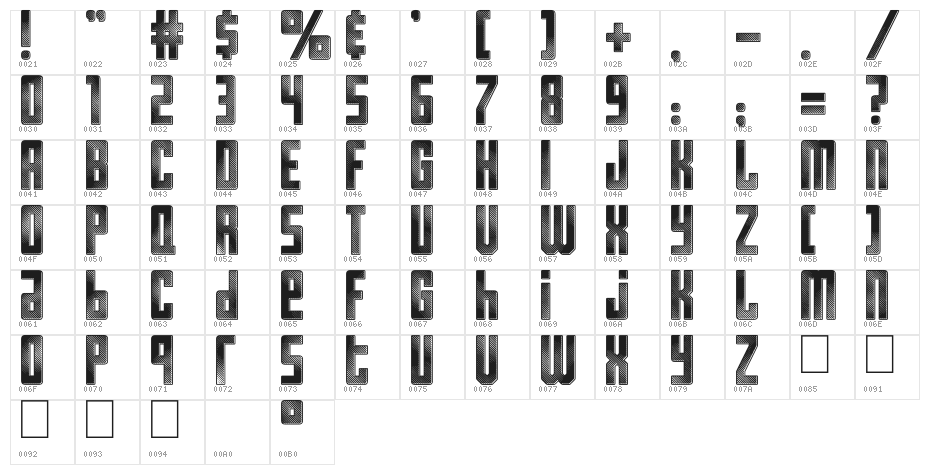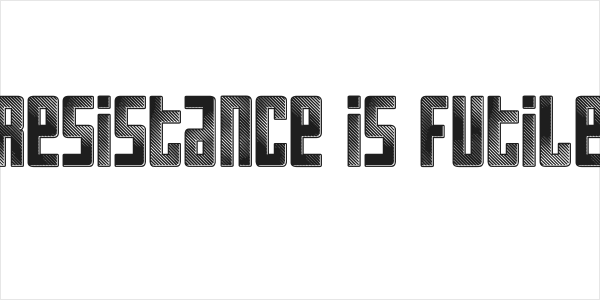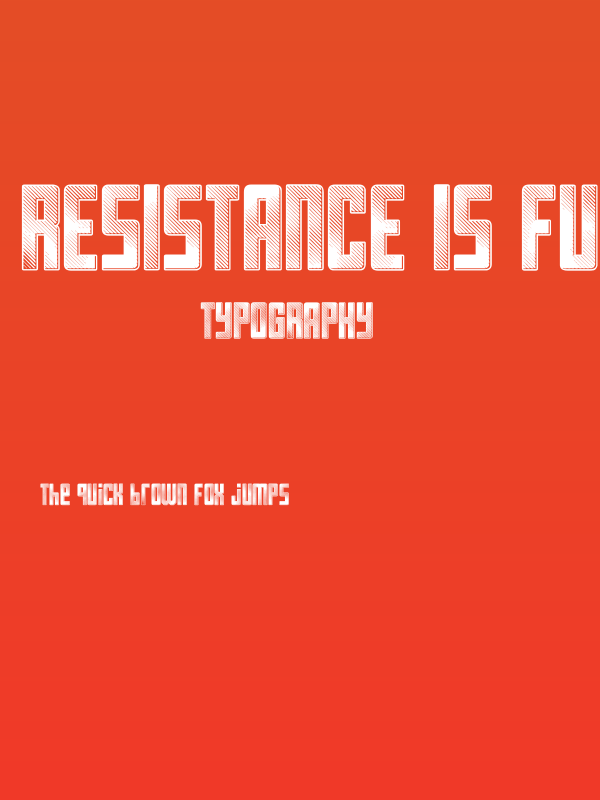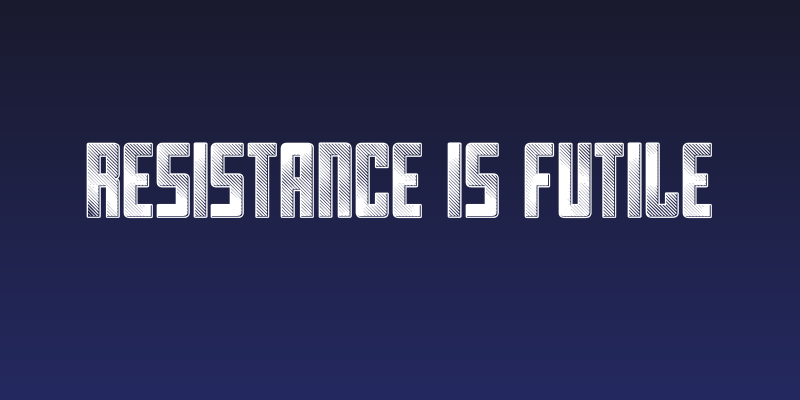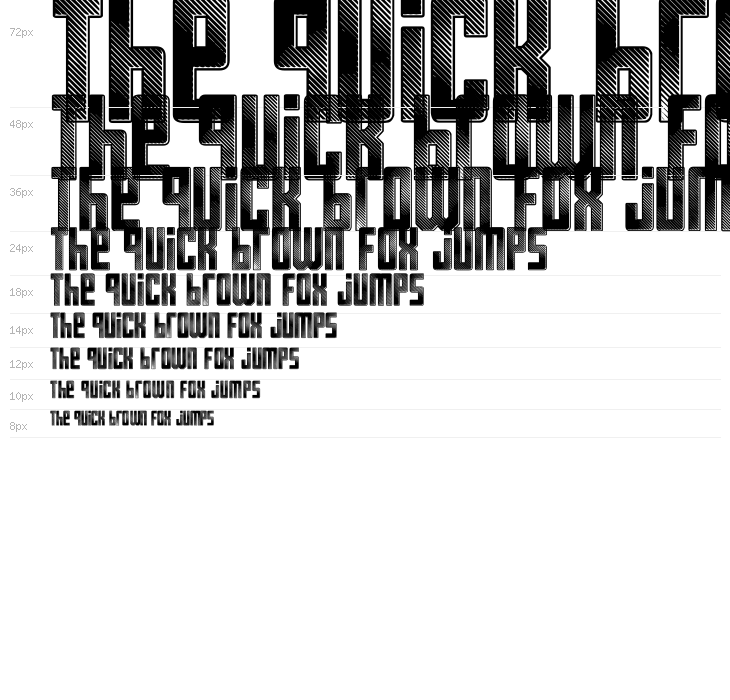
Resistance is Futile Font
Resistance is Futile Description
This font features a bold, geometric design with a distinct diagonal line pattern filling each character. The uppercase and lowercase letters maintain a consistent blocky structure, giving the typeface a strong, industrial feel. The numbers and special characters follow the same design principles, ensuring uniformity across all glyphs. The diagonal lines within each character add a sense of movement and depth, making the font stand out. Its boldness and unique style make it suitable for attention-grabbing designs.
| Proposed Projects | Ideal for posters, logos, and branding projects that require a strong, modern aesthetic. |